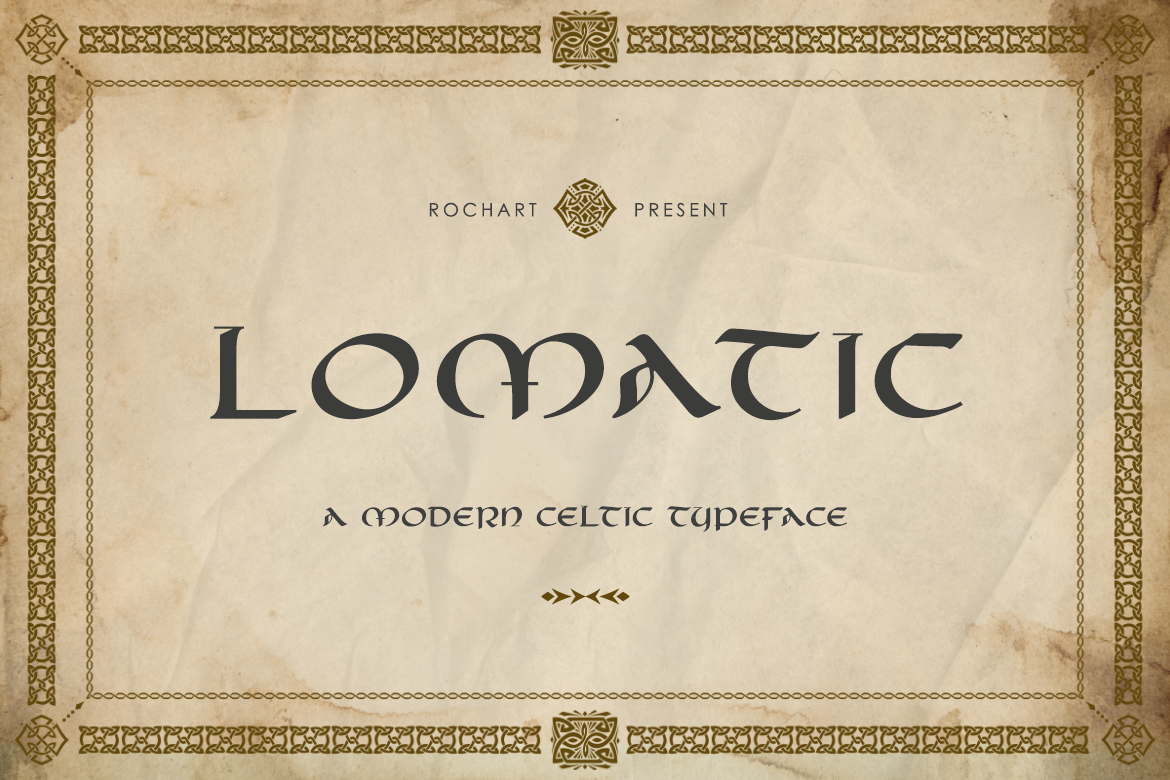
Lomatic Celtic typeface is a captivating font inspired by the enchanting world of Celtic art and symbols. With its beautifully crafted knots and intricate patterns, this font brings a touch of ancient mysticism to your designs.
Perfect for projects related to mythology, folklore, or any Celtic-inspired theme.
Embrace the magic of Lomatic Celtic typeface and let your creativity weave mesmerizing tales of the Celtic heritage.